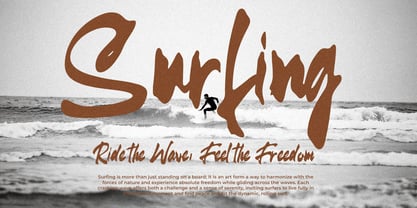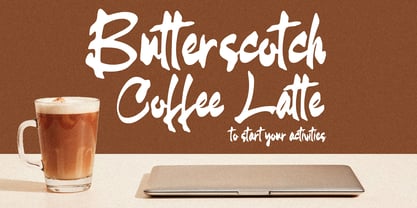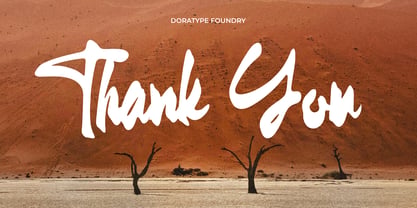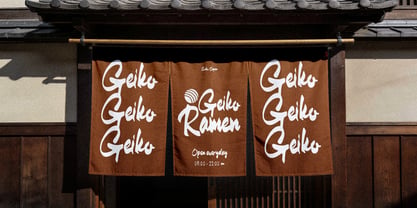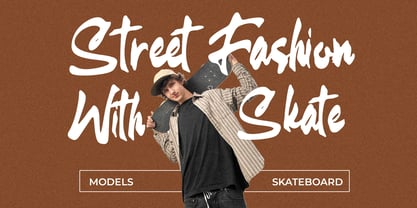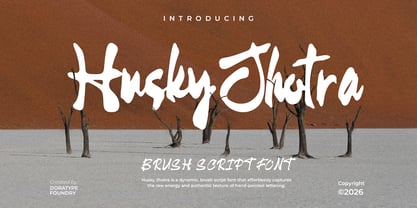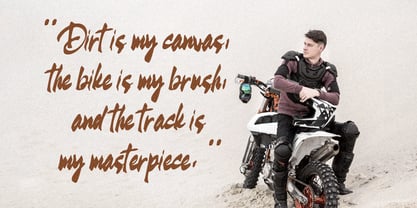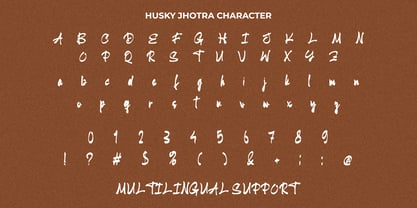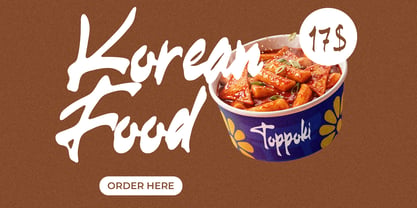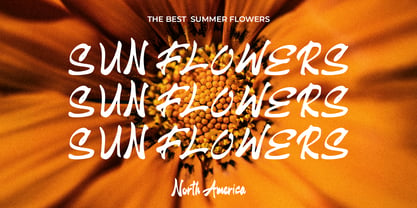
Husky Jhotra
by Dora Typefoundry
The Husky Jhotra Font Family was designed by Zahratul Laila and published by Dora Typefoundry. Husky Jhotra contains 2 styles and family package options. More about this family
Husky Jhotra is a brush script font that exudes a bold character with a strong artistic touch. Inspired by natural brushstrokes, each letter features organic textures, expressive forms, and dynamic stroke flow, resulting in an authentic and energetic appearance. Its unique character offers a blend of modern style and a handcrafted feel, making it an ideal choice for designs that aim to stand out and convey a distinct personality.
Designers: Zahratul Laila
Foundry: Dora Typefoundry